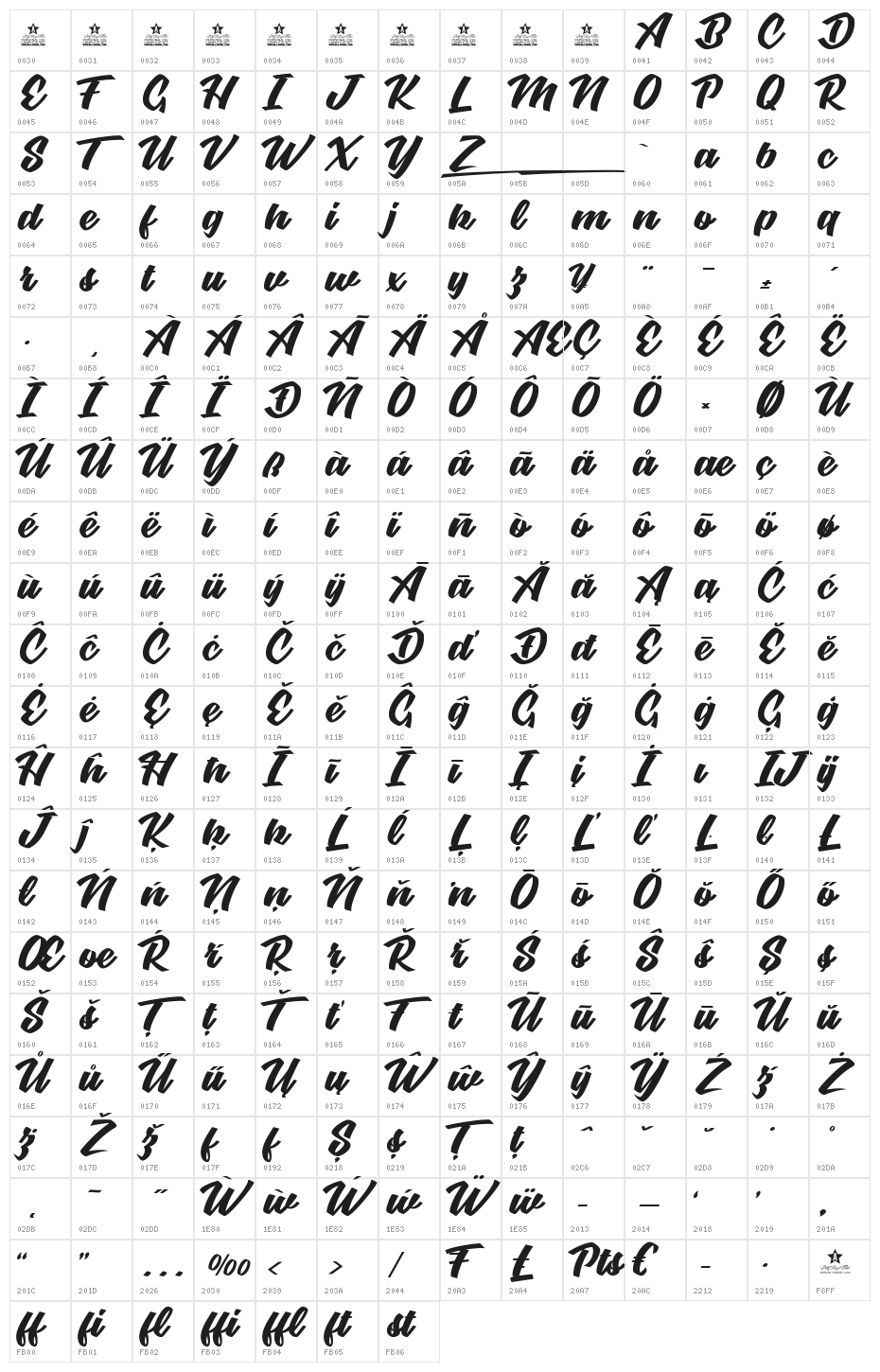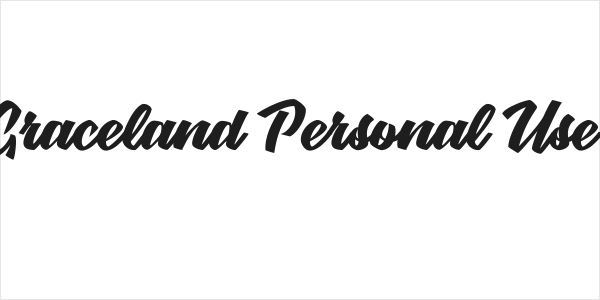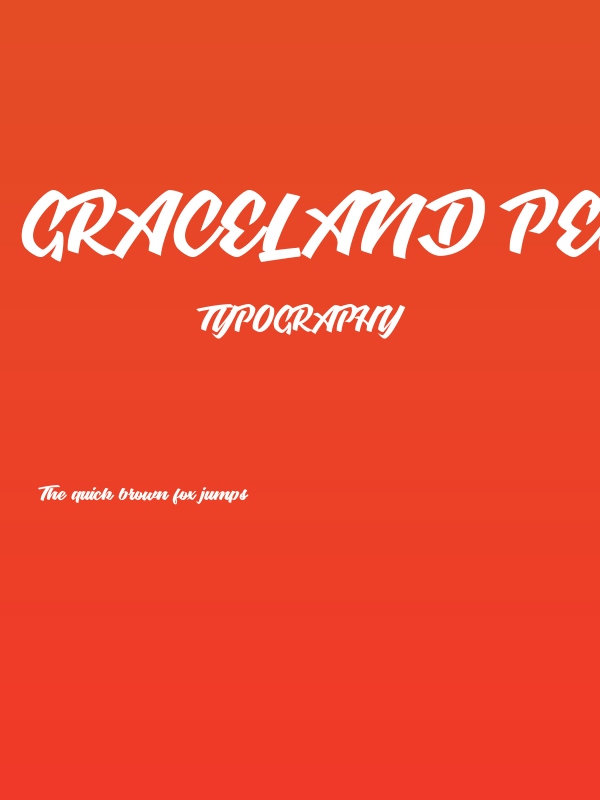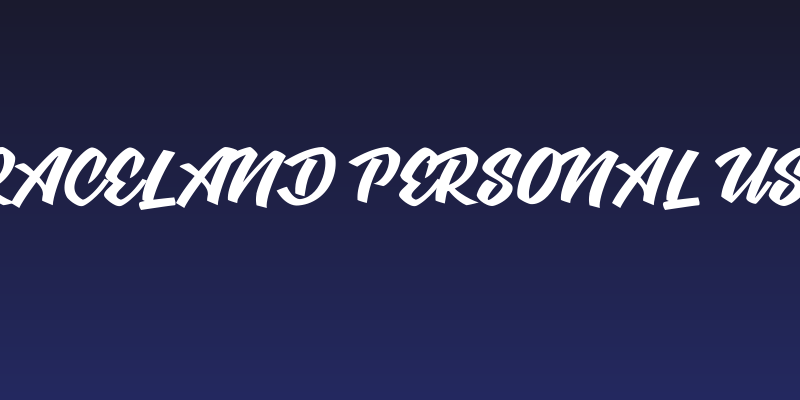
Graceland Personal Use Font
This font features a bold, cursive style with a strong presence and dynamic flow. The uppercase letters are characterized by sharp angles and sweeping curves, giving them a sense of movement and energy. The lowercase letters maintain a consistent style, with smooth connections between characters that enhance the script-like appearance. The numbers and special characters are designed to match the overall aesthetic, ensuring a cohesive look across all elements. This font's bold strokes and high contrast make it stand out, while its cursive nature adds a touch of elegance and flair.
| Proposed Projects | Ideal for branding, logos, headlines, and invitations where a bold, elegant script is desired. |